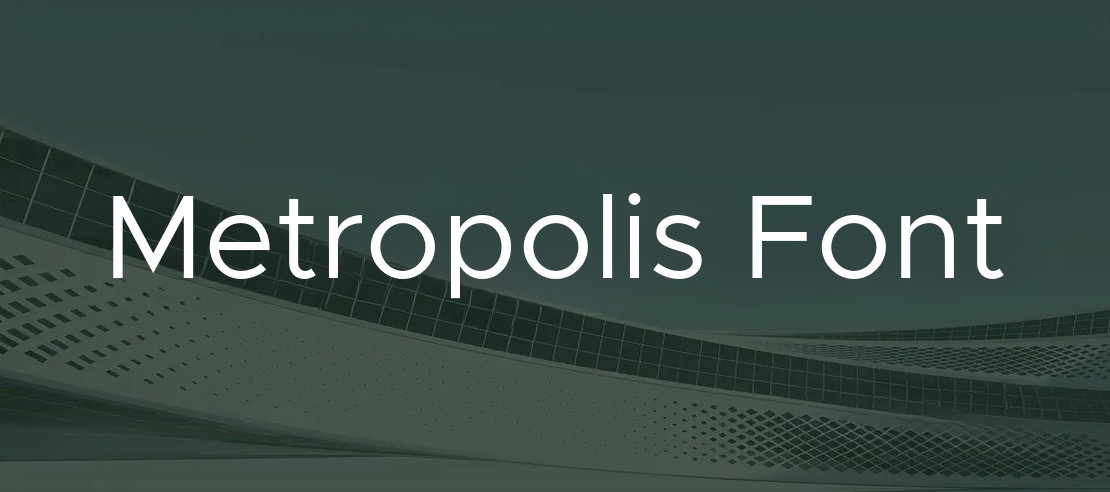
Metropolis Font is considered as the classic and modern font style. It is a member of the Sans-Serif Font Family. This font style has a clean and readable font texture that can easily give your designs and projects elegant vibes. The texture of this font is designed with such perfection that is perfectly suitable for big size screen and small size screen displays.
Designer of Metropolis Font
The elegant and keen texture style is designed by Chris Simpson. He is also created many fonts that have become very popular. While creating this font he focuses on the readability of this textured style.
This font texture is built with a large family of its own. Each style of this family is comprised of capital letters, small letters, glyphs, punctuations, numbers, symbols, special characters, and many language support. These styles are mentioned below.
| Name | Metropolis Font |
| Designer | Chris Simpson |
What type of font is Metropolis font?
This font is the type of Sans-Serif font family. This clean texture font is designed by Chris Simpson.
What font is closest to Metropolis Font?
Some of the typographies are strikingly comparable to the texture of this font. However, Lucian Font is really quite similar to this font. So, as an alternative to the Lucian font style, feel free to use this typeface.